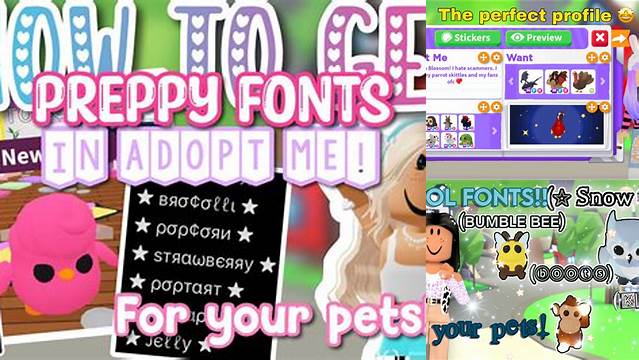
Cool Adopt Me Fonts: Level Up Your Bio In 2024
Hey guys! Are you looking to make your Adopt Me profile stand out? One awesome way to do that is by using cool and unique fonts in your bio. But let's be real, figuring out where to find these fonts and how to use them can be a bit of a mission. That's why I've put together this guide to help you find the perfect Adopt Me fonts for your bio and make your profile pop!
Why Use Unique Fonts in Your Adopt Me Bio?
First off, let's talk about why using different fonts is such a great idea. In a game like Adopt Me, where tons of players are interacting, having a distinctive profile is key to getting noticed. A unique font can instantly catch someone's eye and make them want to check out your profile. Think of it like this: your bio is your personal billboard in the Adopt Me world. Using a stylish font can help you:
- Stand out from the crowd: Let's face it, the default font is kinda, well, basic. Using a different font shows you've put in the extra effort to personalize your profile and express your personality.
- Showcase your personality: The font you choose can reflect your vibe. Are you playful and quirky? Go for a fun, bubbly font. More serious and stylish? A sleek, modern font might be the way to go. The font is an extension of you!
- Make your bio more readable: Some fancy fonts are not just cool-looking but also super easy to read. A clear and stylish font can make your bio more inviting and ensure people actually read what you've written.
- Attract friends and trades: A well-crafted bio with a catchy font can be a magnet for new friends and potential trade partners. People are more likely to interact with someone who has a visually appealing profile.
So, now that we're all on board with the fontastic possibilities, let's dive into where you can find these awesome fonts.
Where to Find Cool Fonts for Your Adopt Me Bio
Okay, so you're probably thinking, "This sounds great, but where do I even start looking for these fonts?" Don't worry, I've got you covered. There are tons of online resources that offer a variety of fonts you can use to spice up your Adopt Me bio. Here are some of my go-to spots:
1. Online Font Generators
These are seriously lifesavers! Online font generators are websites that allow you to type in your text, and then they'll generate it in a bunch of different fonts. All you have to do is copy and paste the font you like into your Adopt Me bio. How easy is that?
- How They Work: You just type your bio text into the generator, and it instantly displays your text in a variety of cool fonts. You can scroll through and see which one catches your eye. Some generators even let you customize the size and style of the font.
- Popular Options:
- LingoJam: This is a super popular choice because it's easy to use and has a ton of different fonts. Plus, it's not just for Adopt Me; you can use it for other social media platforms too.
- Cool Fancy Text Generator: This site offers a wide range of fancy fonts, from cursive to bold to even upside-down text (if you're feeling extra quirky!).
- Texty Fancy: Texty Fancy is another great option with a clean interface and lots of font styles to choose from. You can preview how your text will look in each font before you copy and paste it.
- Tips for Using Font Generators:
- Check for Readability: While some fonts look super cool, they might be hard to read. Make sure the font you choose is clear and easy for other players to understand.
- Test It Out: Before you commit, copy and paste the font into your Adopt Me bio to see how it looks in the game. Sometimes fonts can appear differently in the game than they do on the generator website.
- Mix and Match: Don't be afraid to use different fonts for different parts of your bio. You could use a bold font for your username and a more playful font for the rest of your text.
2. Font Apps for Your Phone
If you're on your phone a lot, using a font app can be super convenient. These apps let you create fancy text right on your phone, so you can easily copy and paste it into your Adopt Me bio. It's like having a font generator in your pocket!
- How They Work: You download the app, type your text, choose a font, and then copy the text to your clipboard. From there, you can paste it directly into your Adopt Me bio.
- Popular Options:
- Fonts - Emojis & Fonts Keyboard: This app is available for both iOS and Android and has a huge selection of fonts and emojis. It also integrates with your keyboard, so you can use the fonts in other apps too.
- Cool Fonts for Instagram Bio: Even though it's designed for Instagram, this app works great for Adopt Me bios too. It has a ton of stylish fonts that will make your profile stand out.
- Stylish Text: This app is another great option for creating fancy text on your phone. It has a simple interface and a wide variety of fonts to choose from.
How to Use Fonts in Your Adopt Me Bio: A Step-by-Step Guide
Alright, you've found your font, now what? Let's walk through how to actually use it in your Adopt Me bio. It's super easy, I promise!